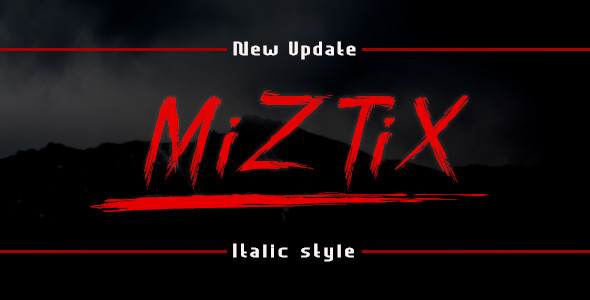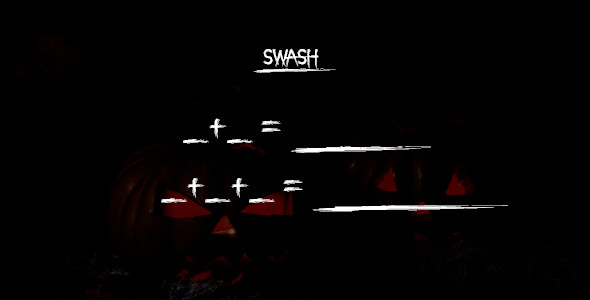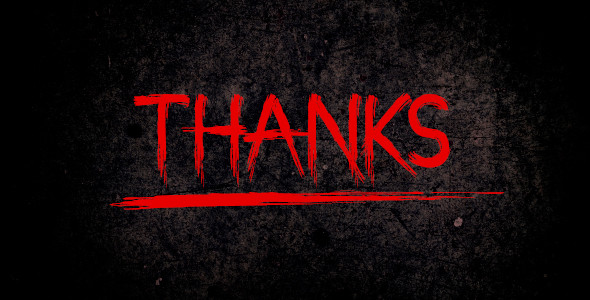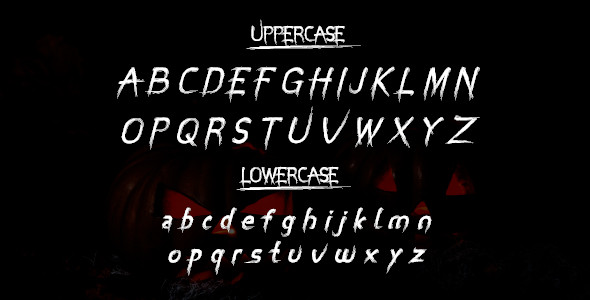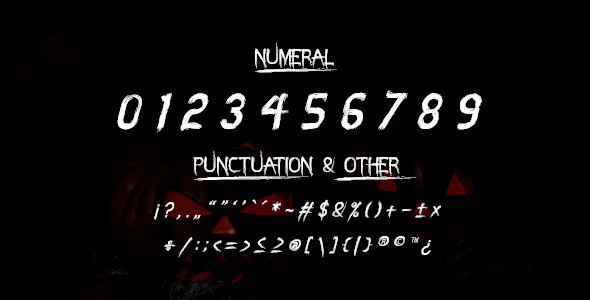
Miztix Font is a font inspired by scratches / handwriting on the walls of an uninhabited building
MiZTix Display Font is suitable for posters, flayers, films, social media posts, and others that require fonts with a free stroke style.
- UPPERCASE & lowercase
- Numeral & other